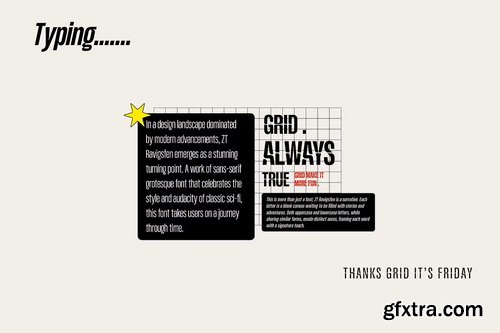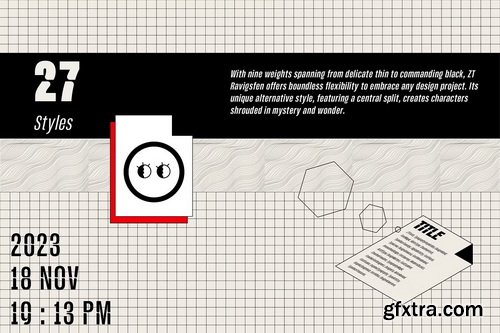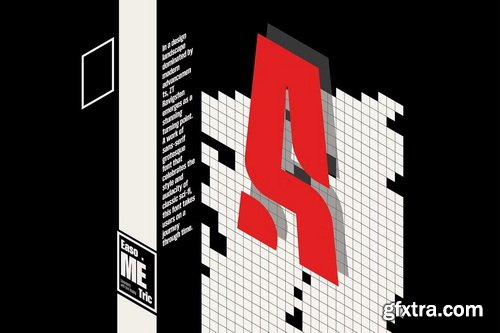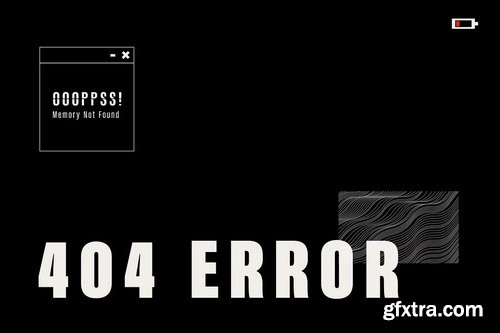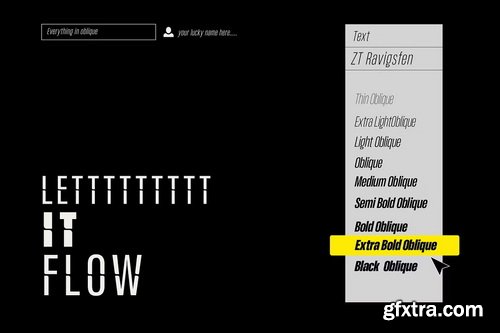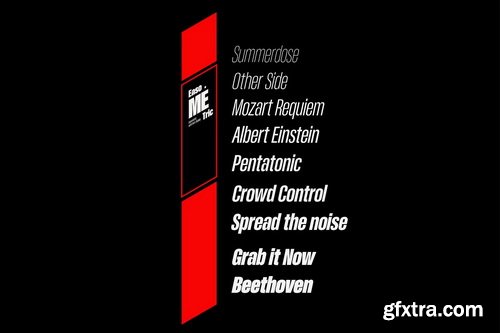
- In a design landscape dominated by modern advancements, ZT Ravigsfen emerges as a stunning turning point. A work of sans-serif grotesque font that celebrates the style and audacity of classic sci-fi, this font takes users on a journey through time.
- With nine weights spanning from delicate thin to commanding black, ZT Ravigsfen offers boundless flexibility to embrace any design project. Its unique alternative style, featuring a central split, creates characters shrouded in mystery and wonder.
- This is more than just a font; ZT Ravigsfen is a narrative. Each letter is a blank canvas waiting to be filled with stories and adventures. Both uppercase and lowercase letters, while sharing similar forms, exude distinct auras, framing each word with a signature touch.